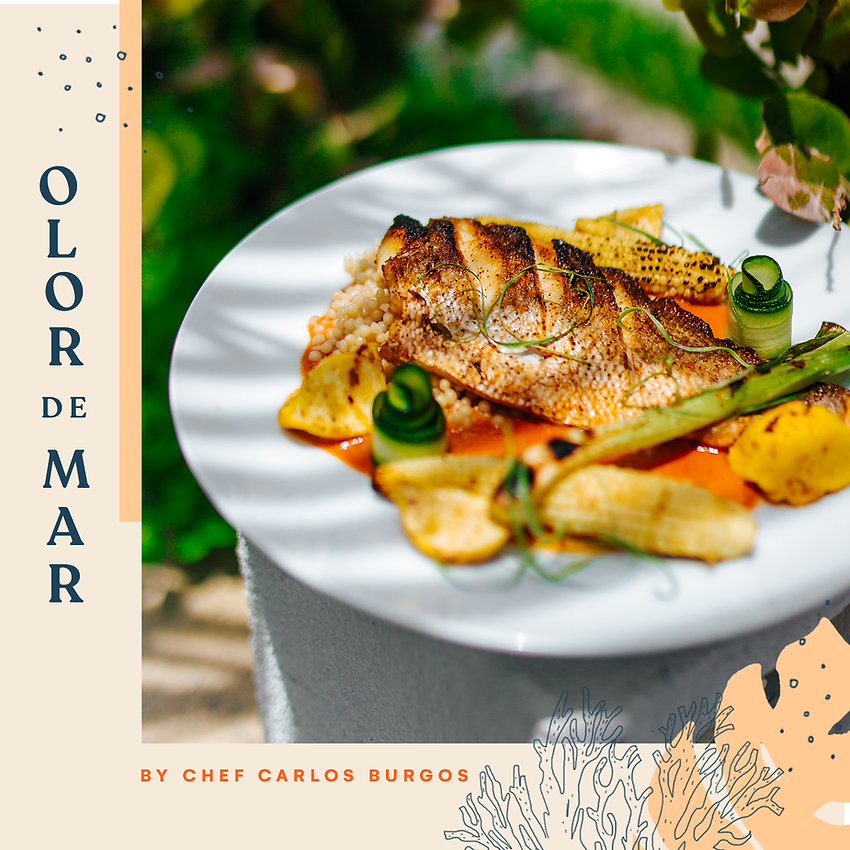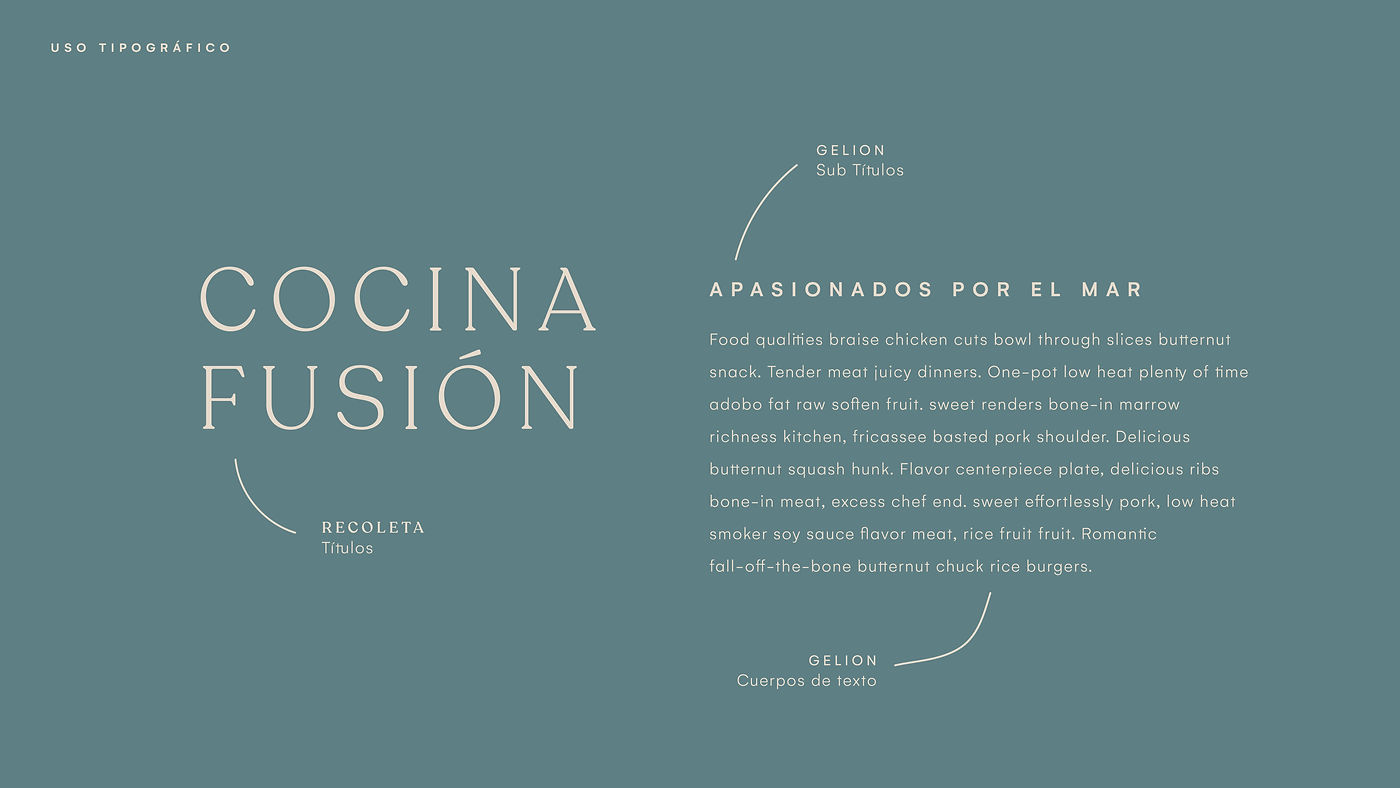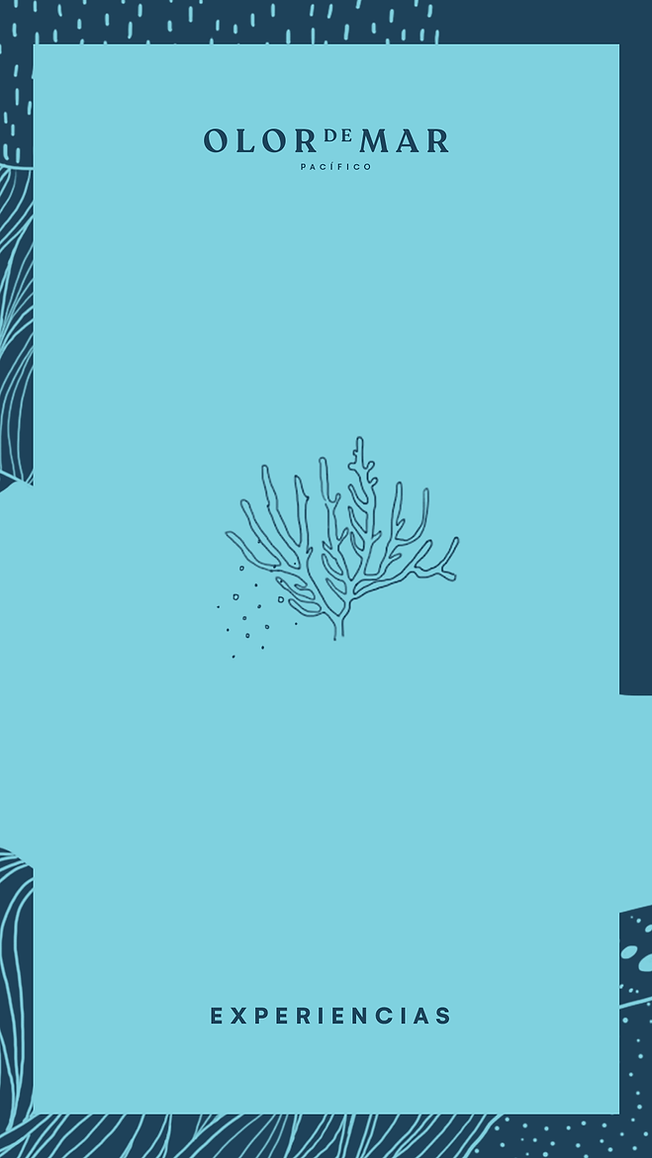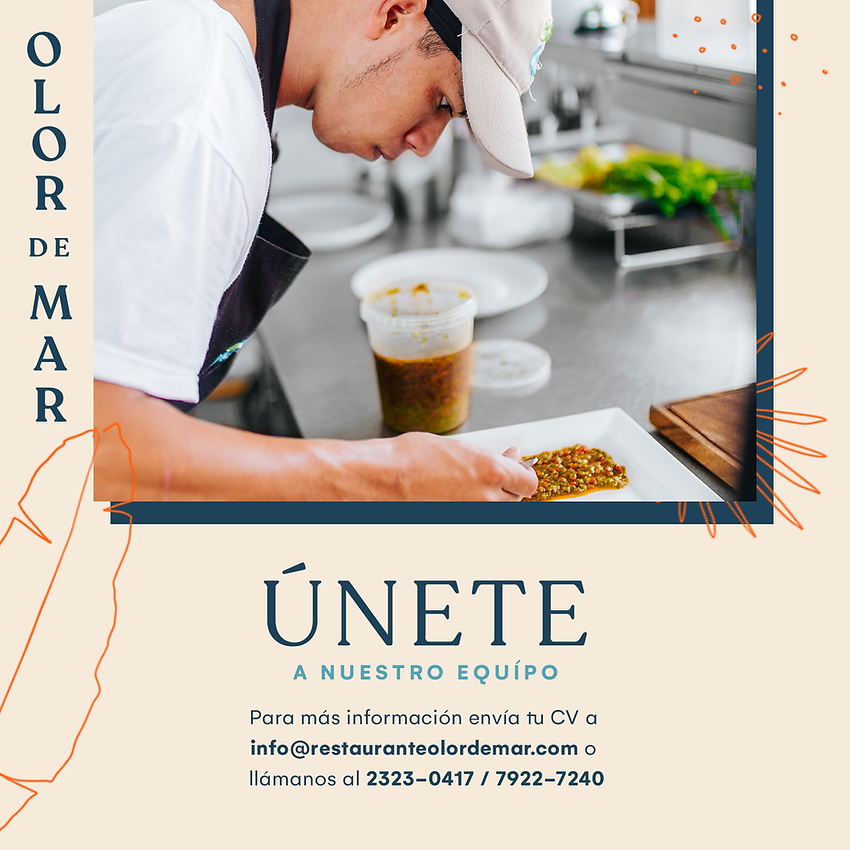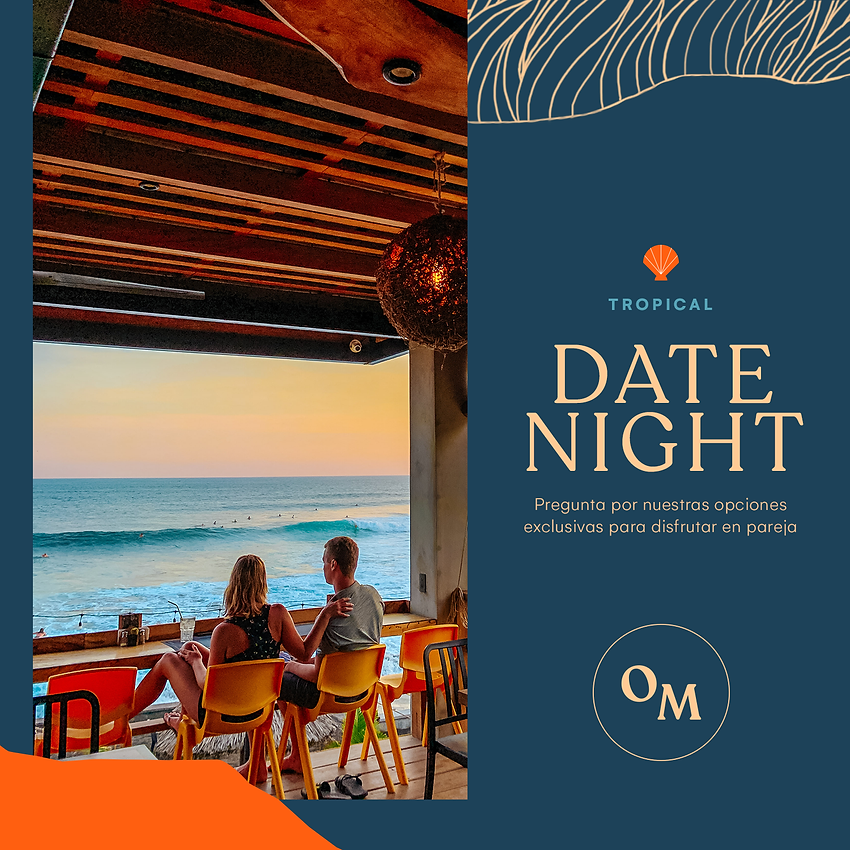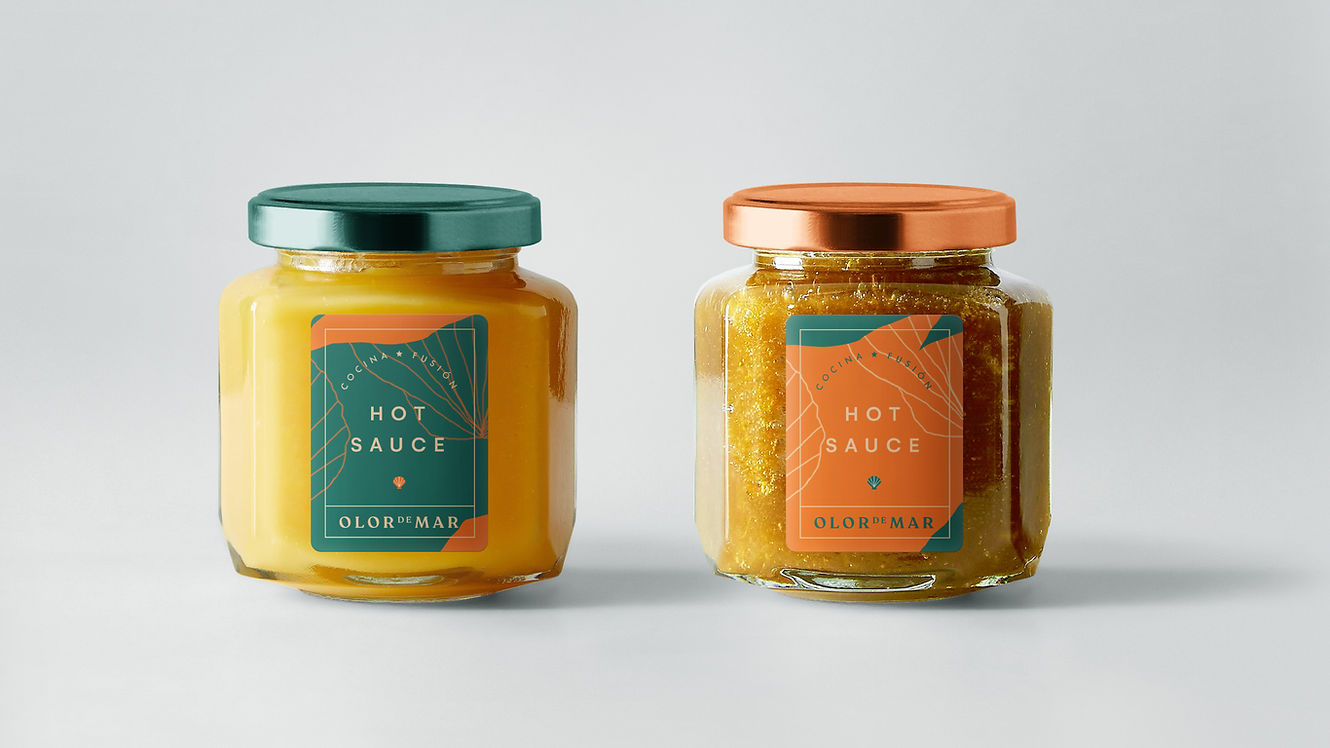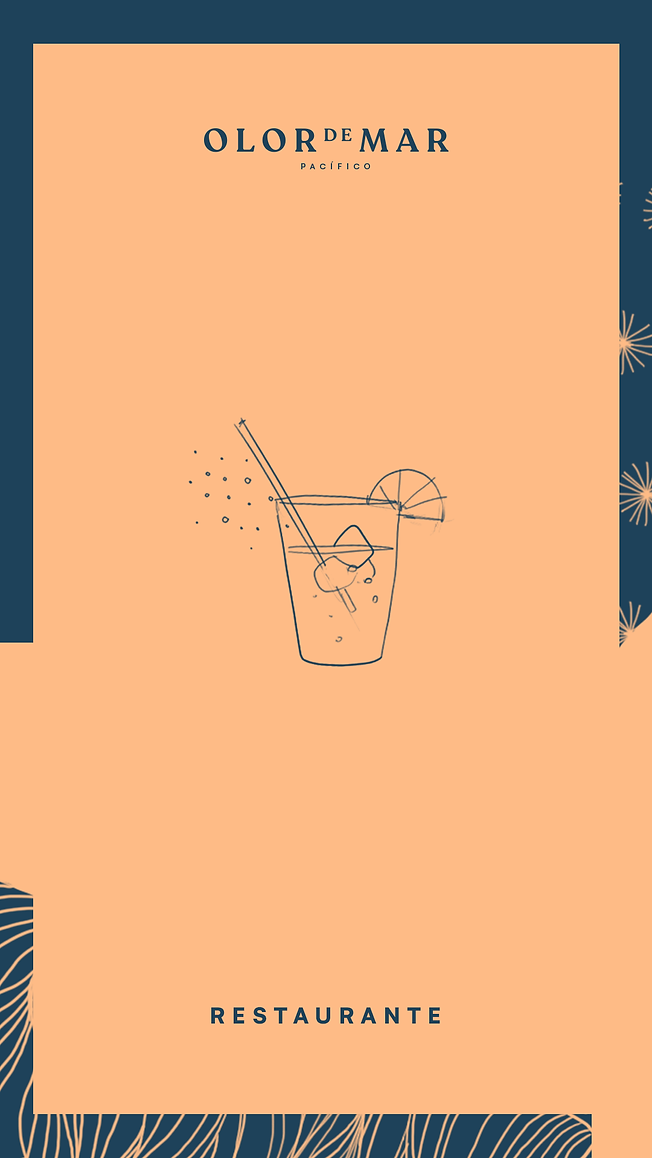
Olor de mar
Olor de Mar is a sustainable fusion restaurant located in El Zonte Beach, El Salvador.
Inspired by the warmth of the local community and the natural beauty of the Pacific coast, the goal of the project was to create a brand identity that felt organic, human, and deeply connected to its environment.
The visual system was built around handcrafted illustrations, expressive textures, and a coastal-inspired color palette drawn from the ocean, coral, tropical vegetation, seashells, and sunsets of El Zonte. All illustrations and graphic elements were created by hand to give the brand a more tactile, artisanal, and authentic personality.
The identity combines elegant typography with organic compositions and imperfect illustrative details to create a visual language that feels both refined and approachable. The result is a brand that captures the relaxed atmosphere of the beach while reflecting the restaurant’s ecological and sustainable philosophy.
The project included the development of the full visual identity system, including logo exploration, handcrafted illustrations, color palette, social media assets, menus, editorial layouts, and branded applications across multiple touchpoints.